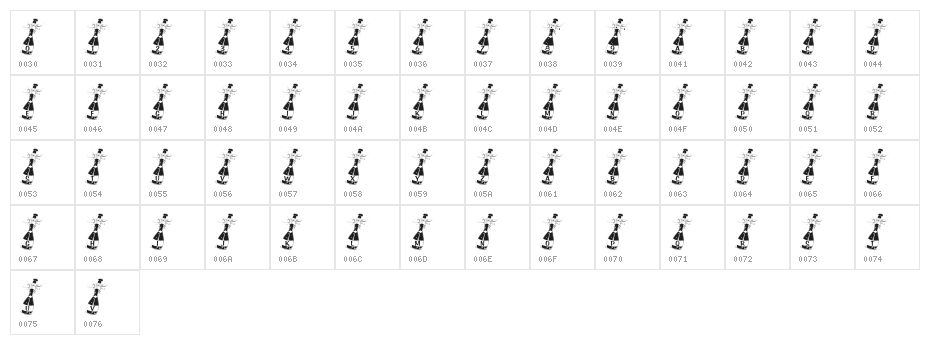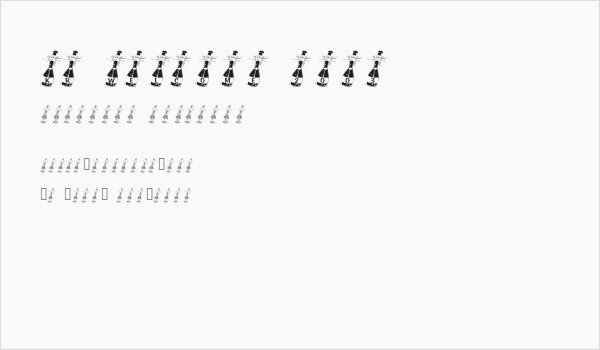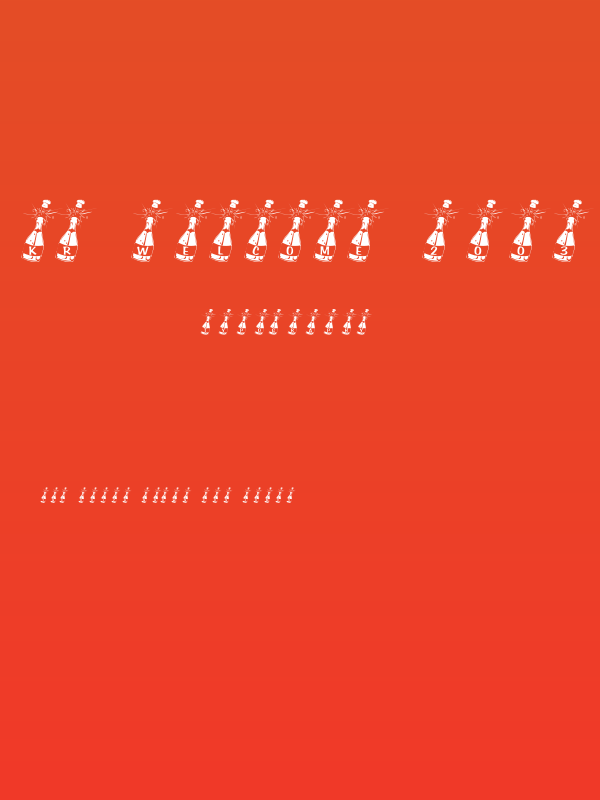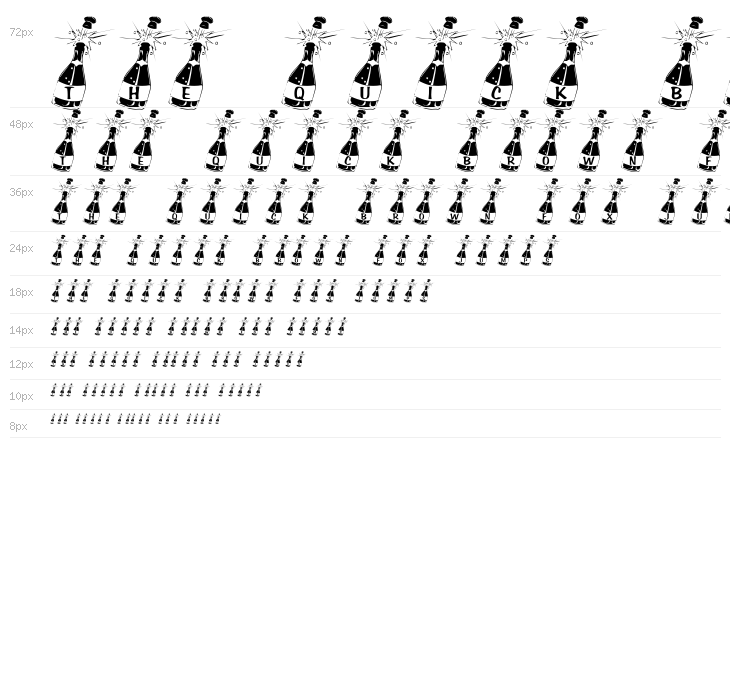
KR Welcome 2003 Font
KR Welcome 2003 Description
This playful and decorative font features characters integrated into the design of a champagne bottle with a popping cork. Each letter and number is creatively embedded within the bottle, giving a festive and celebratory feel. The style is highly decorative, making it suitable for occasions that require a fun and lively touch. The characters are bold and stand out due to their unique design, which incorporates both the letterform and the bottle shape. This font is not suitable for body text due to its intricate design but works well for thematic headings and special event invitations.
| Proposed Projects | Ideal for party invitations, event posters, and festive greeting cards. |